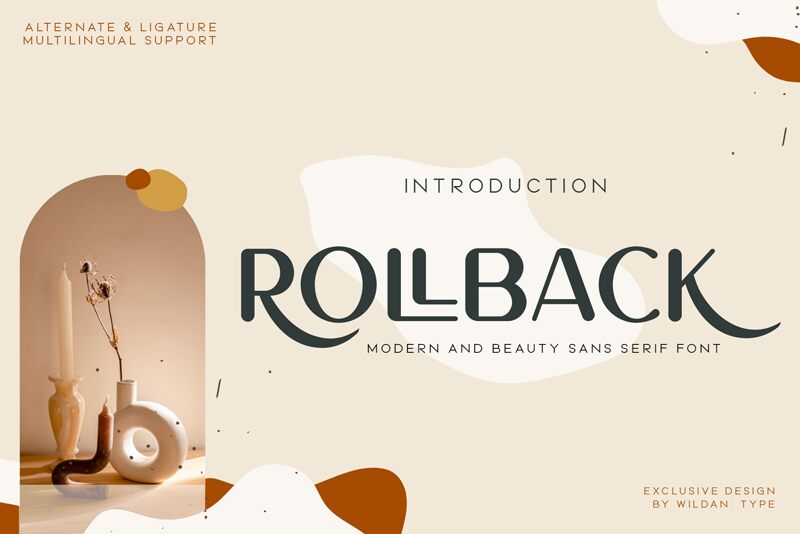
Rollback Oblique
Rollback Oblique, a captivating sans serif font designed by Wildan Type, exudes a striking blend of modern sophistication and timeless elegance. With its sharp, angular forms and subtle curves, this font commands attention, inviting the viewer to explore its dynamic interplay of light and shadow. The Rollback Oblique's distinctive personality effortlessly conveys a sense of confidence and purpose, making it an ideal choice for a wide range of design applications.
The Rollback Oblique's versatility shines through, making it a versatile option for branding, editorial design, and even digital interfaces. Its bold, yet refined aesthetic lends itself beautifully to headings, logotypes, and attention-grabbing displays, while its legibility and clean lines ensure a seamless reading experience in longer-form content. Whether crafting a sleek and sophisticated advertising campaign or designing a modern, minimalist website, the Rollback Oblique font by Wildan Type offers a captivating and impactful solution.
Designer by Wildan Suprian Syah
Foundry : Wildan Type